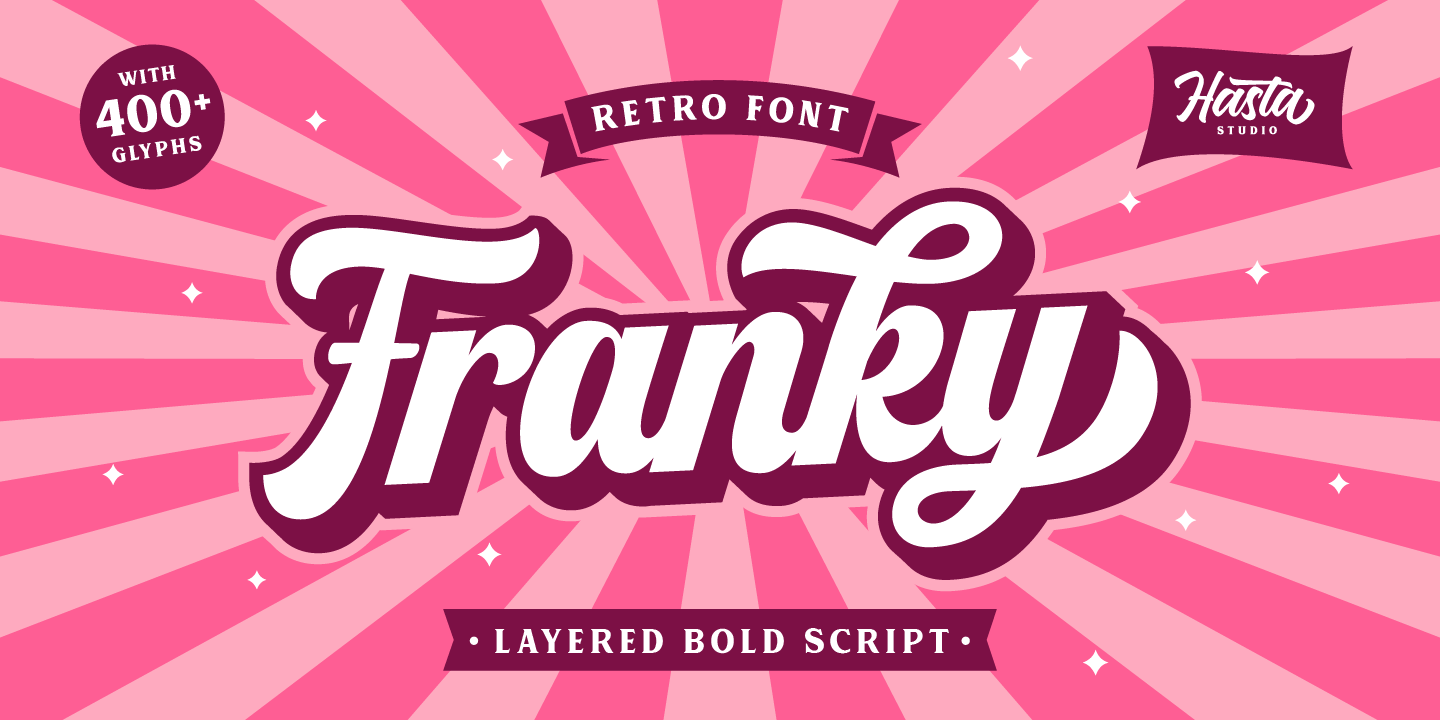
The Franky Font is incredibly versatile, making it a fantastic choice for a wide range of design projects that aim to evoke a sense of playful creativity, casual charm, and a distinctly modern, often handcrafted aesthetic. Imagine it bringing a vibrant energy to children's brands, making fun event posters pop with personality, or adding a friendly touch to social media graphics for lifestyle content. It's also fantastic for crafting unique product packaging for artisanal goods, engaging YouTube thumbnails, and cheerful apparel designs. Its inherent warmth and approachable style make it perfect for any project striving to communicate joy, imagination, and a lighthearted, personal touch.
What makes Franky Font so exciting is its unique blend of whimsical character and clear readability. It often features slightly irregular baselines, rounded edges, or a charming hand-drawn quality that gives it an immediate sense of warmth and genuine appeal. This font doesn't just display text; it tells a story with a smile, making your message feel approachable, creative, and truly special. Its balance of aesthetic appeal and functional clarity ensures that your designs are not only beautiful but also effectively convey their intended sentiment. It's a typeface that brings an atmosphere of playful charm and inviting warmth to your typography, guaranteeing your projects leave a delightful and memorable impression.
The Franky Font family typically includes a range of weights and stylistic alternatives to provide extensive creative flexibility. While specific options can differ, you can generally expect to find alternatives like Regular, Bold, and potentially an Italic or a set of decorative alternates with playful ligatures and swashes that enhance its natural flow. These different weights and stylistic sets allow you to create dynamic visual hierarchies and add nuanced artistic flair to your typography, ensuring a cohesive and beautifully crafted design. This comprehensive family support ensures that whether you need a strong, inviting headline or a subtle, cheerful accent, Franky Font Free Download offers the perfect elements to bring your charming vision to life.